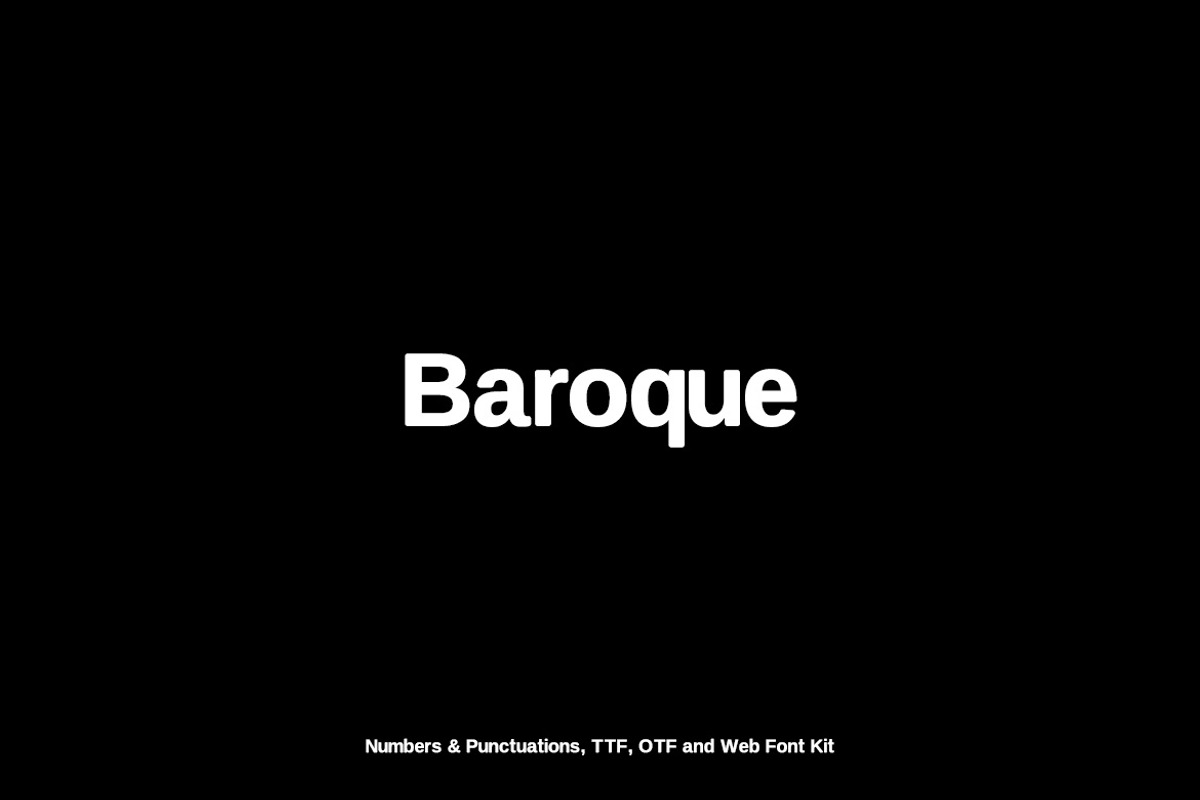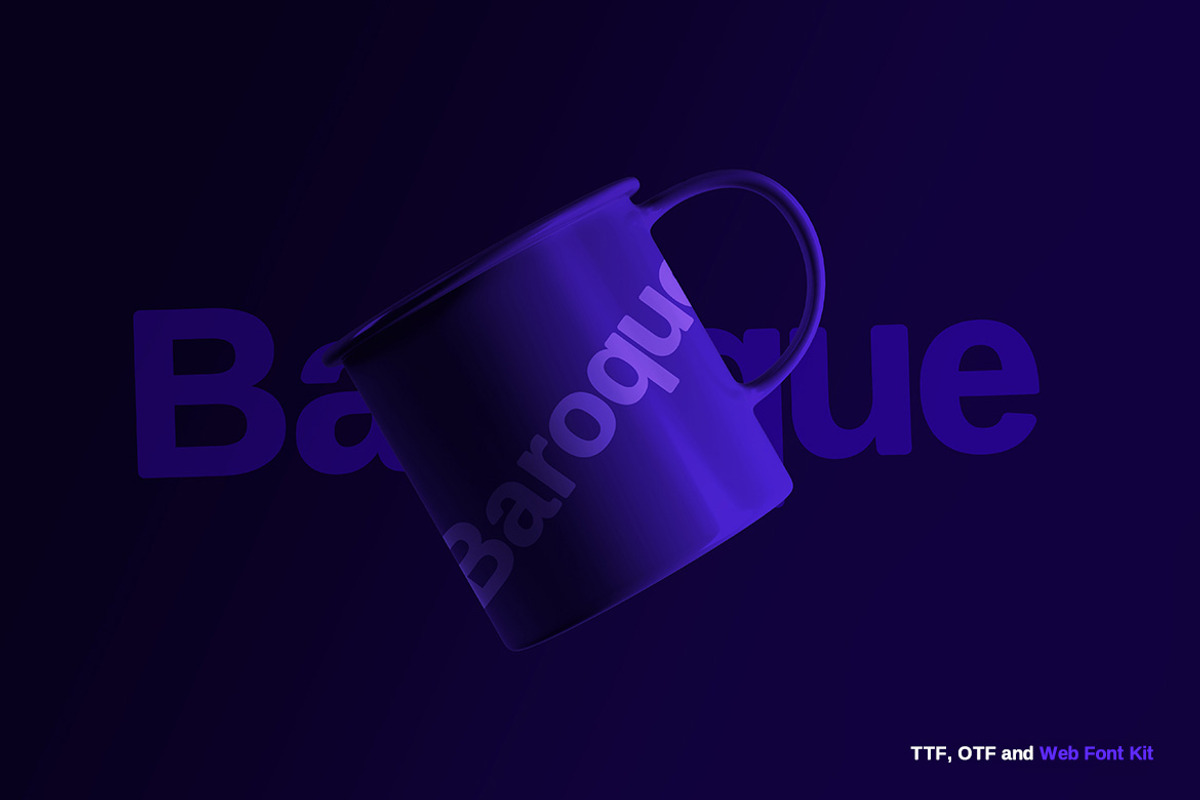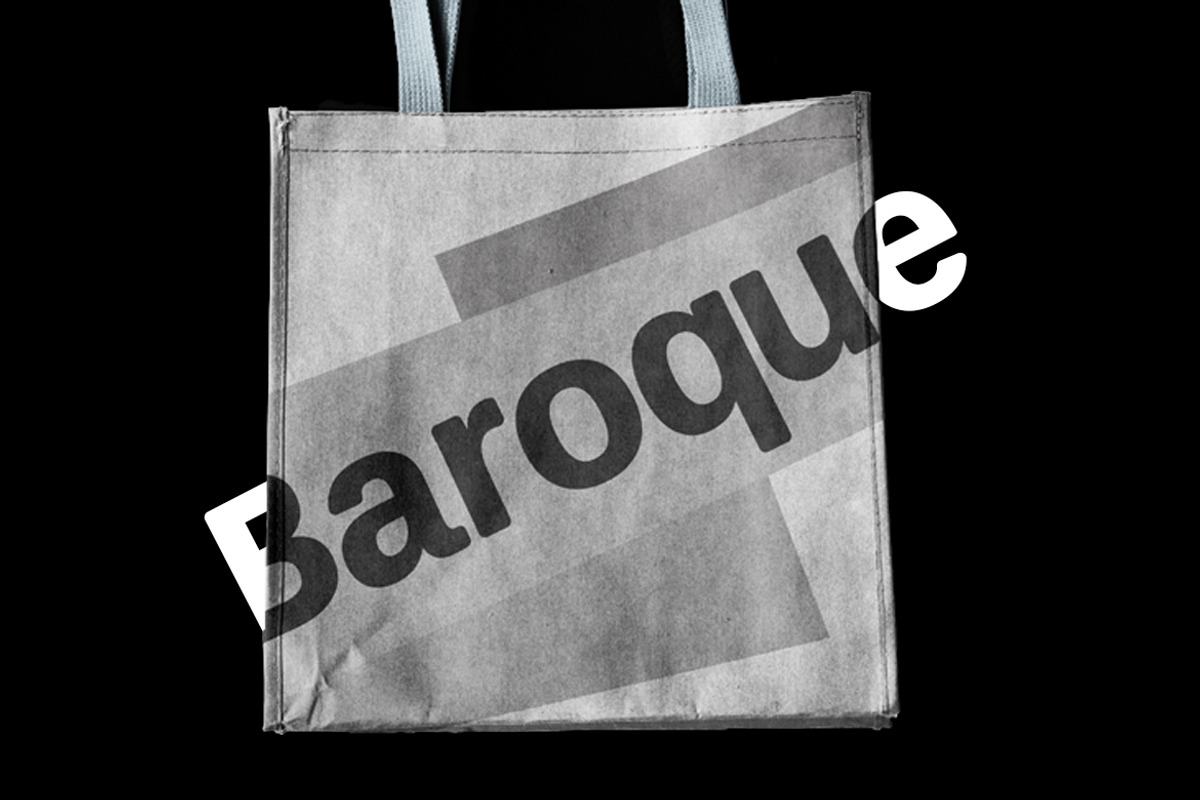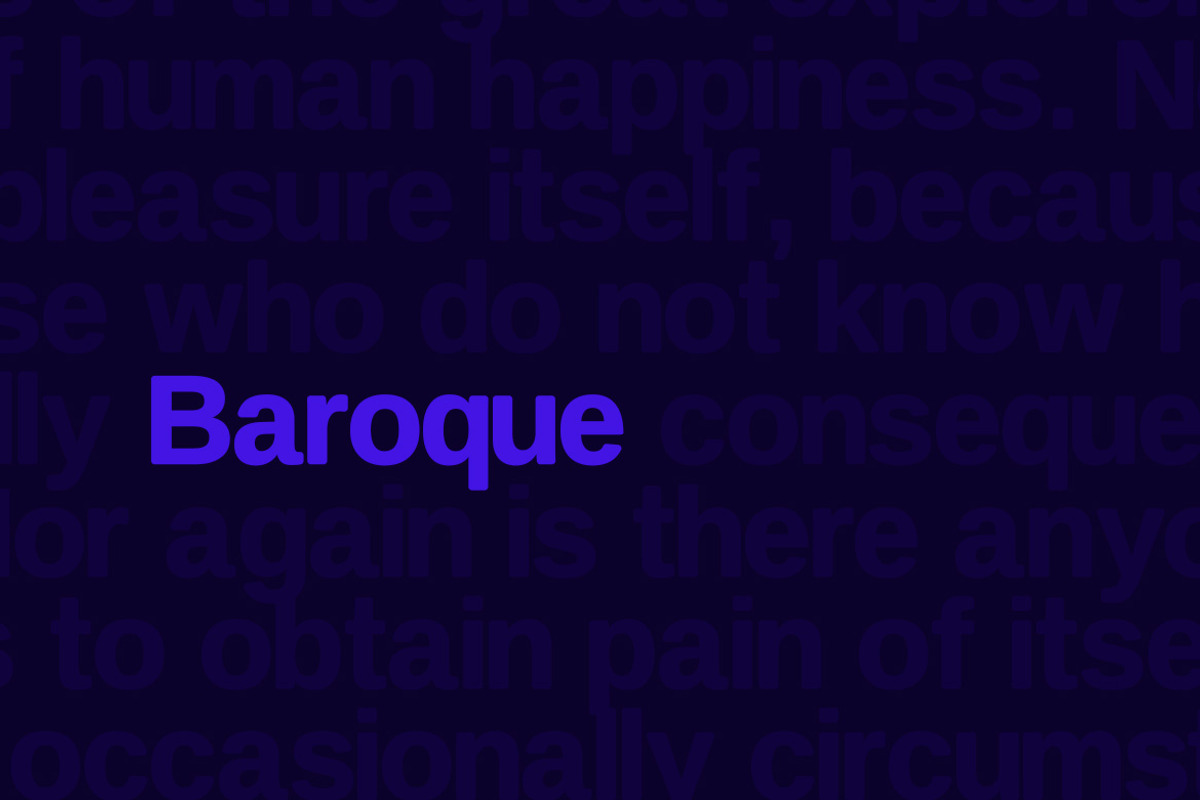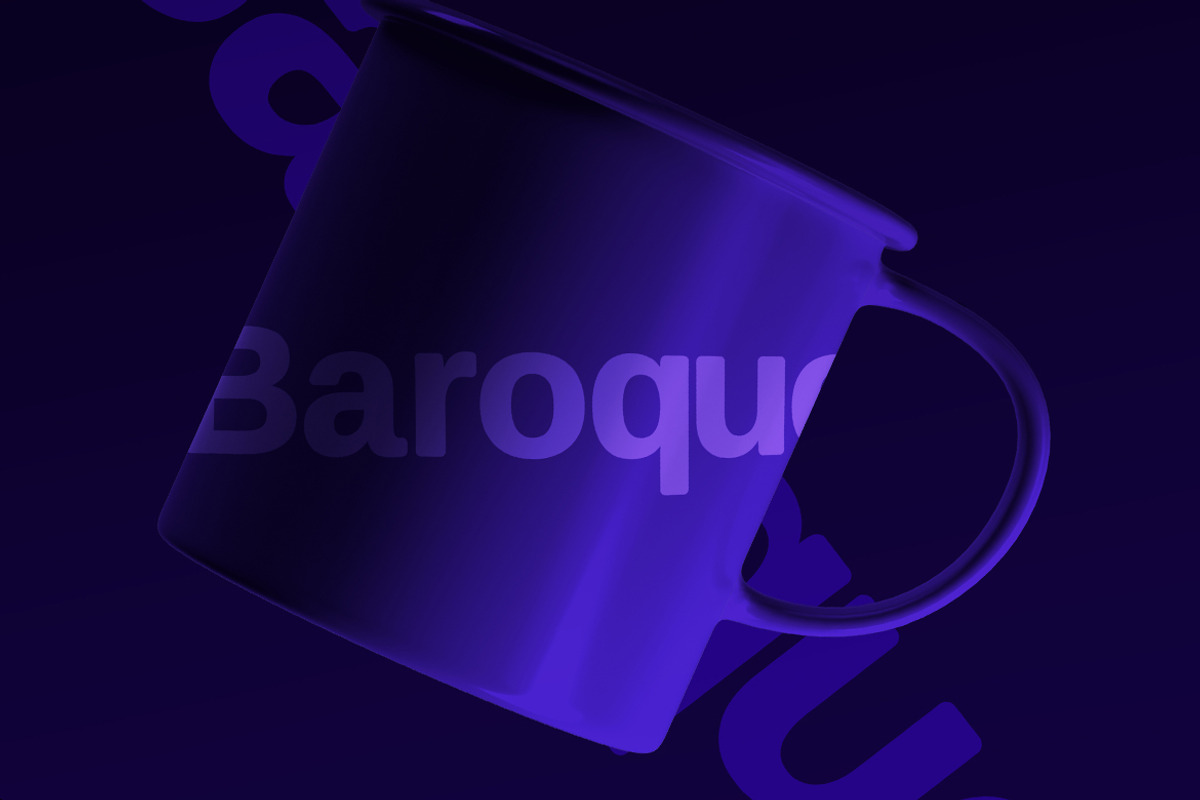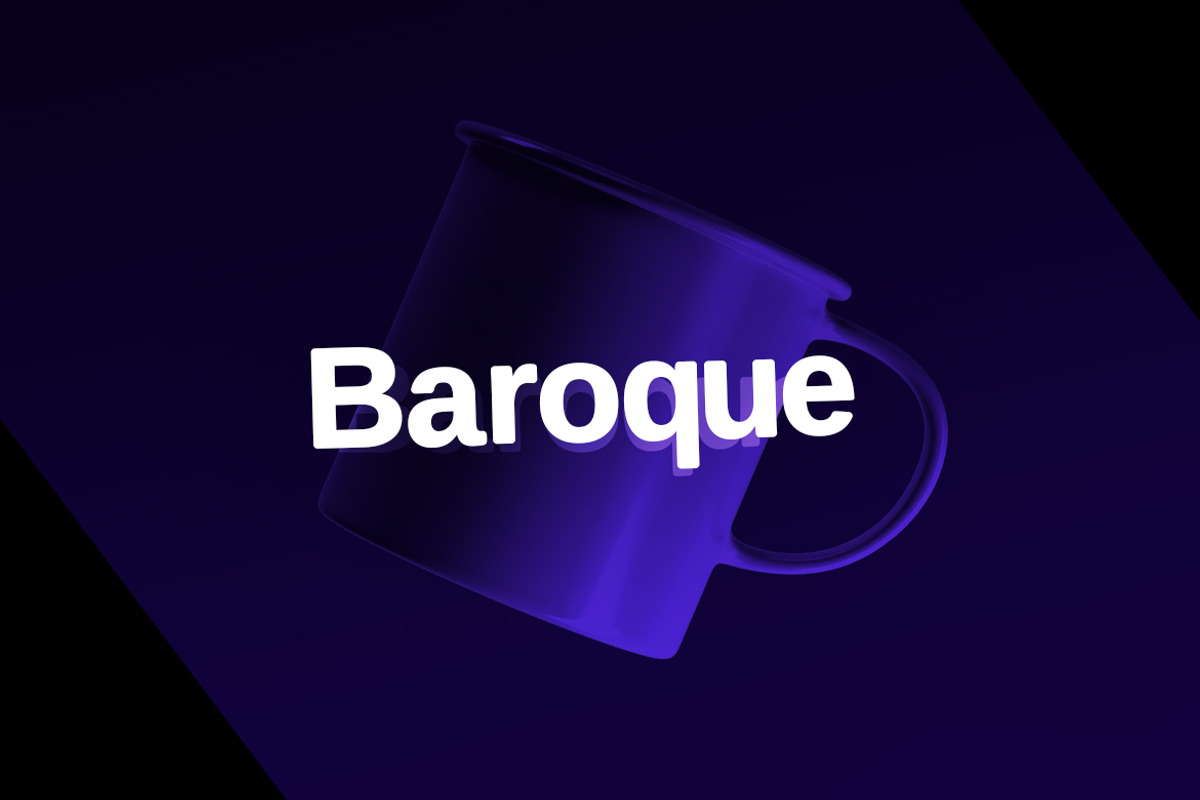
Baroque sans Typeface
Baroque is a Modern Sans Serif typeface very much suitable for Film Posters, headlines, Block letter, Subheading, Logo Designs, Big Banners. Creative & Decorative Typography Web Designs.
Baroque is perfectly suited for eye-catching headlines. Its clean appearance and mid-weight make it a wonderful candidate for being paired with more decorative subheading fonts.
Why Baroque sans Typeface is worth a look
Baroque sans Typeface by Webhance Studio fits naturally into Branding, posters, packaging, typography.